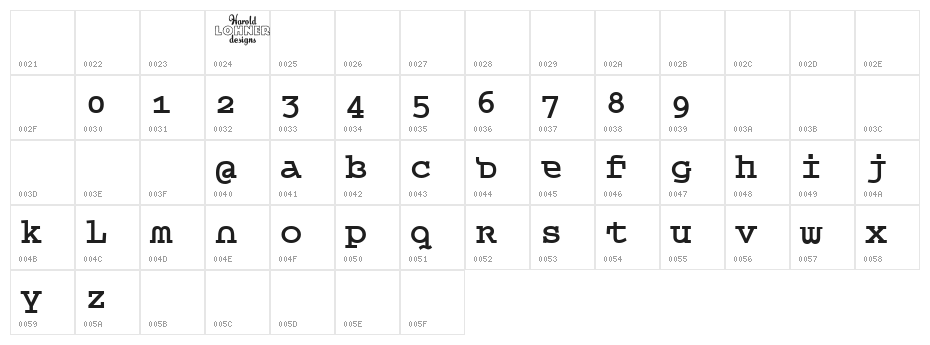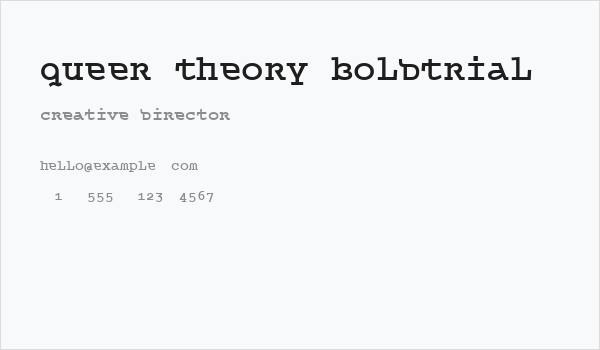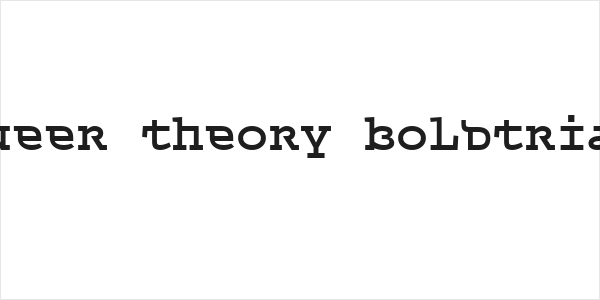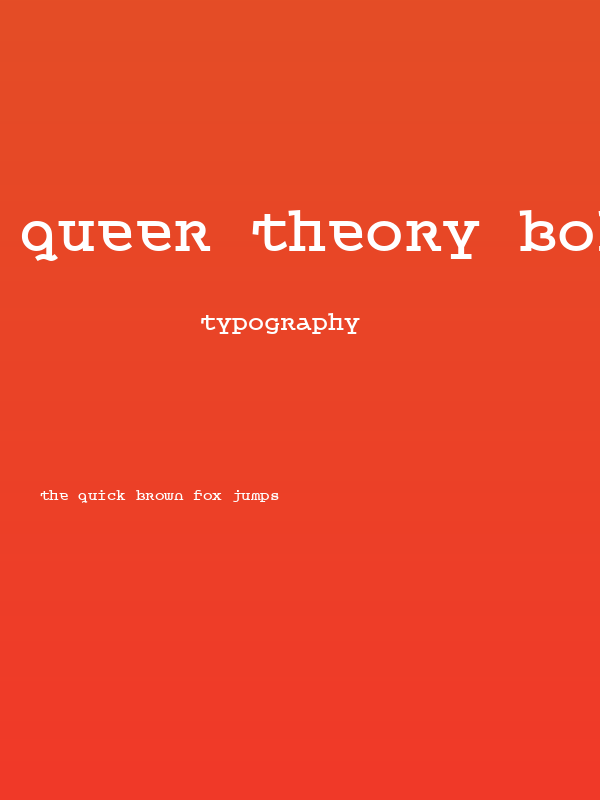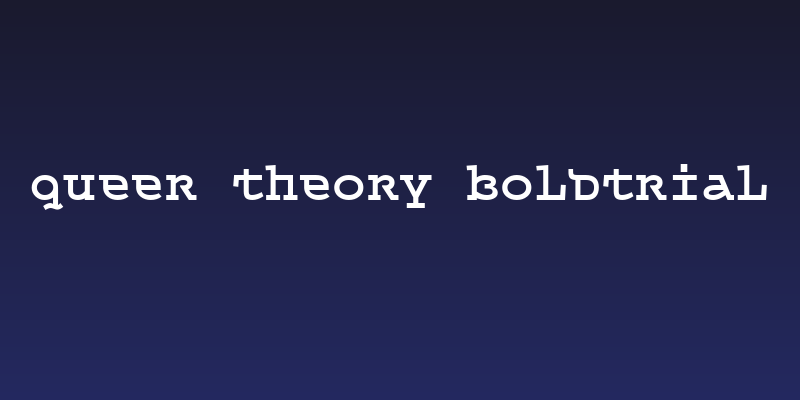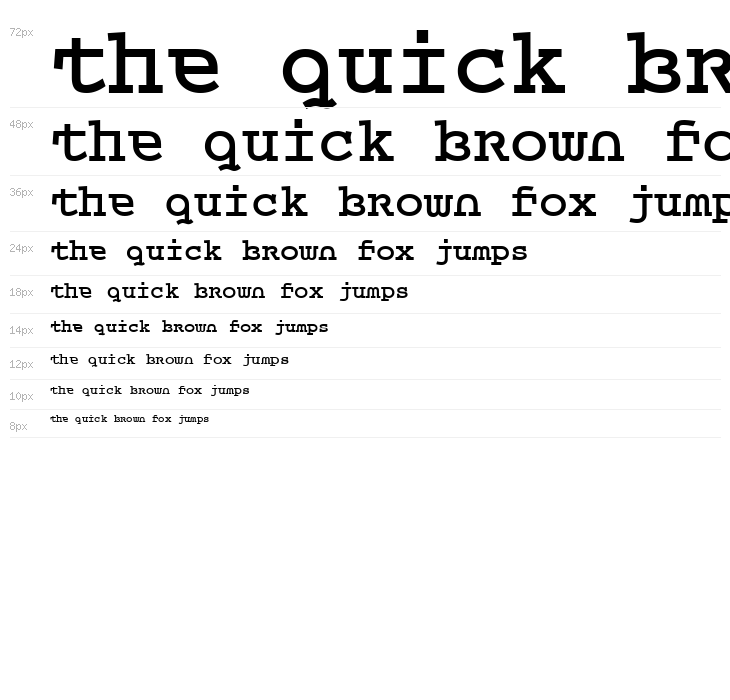
Queer Theory BoldTrial Font
Queer Theory BoldTrial Description
This font features a bold, playful style with unique character shapes that incorporate unexpected curves and angles, giving it a distinctive and quirky appearance. The letters are bold and have a strong presence, making them stand out in any design. The font maintains a consistent weight throughout, with rounded edges that soften the overall look. The numbers and special characters follow the same design principles, ensuring a cohesive appearance across all elements. This font is ideal for projects that require a touch of whimsy and creativity.
| Overall Style | Playful, Quirky |
| Proposed Projects | Ideal for branding, posters, children's books, and any project requiring a whimsical touch. |